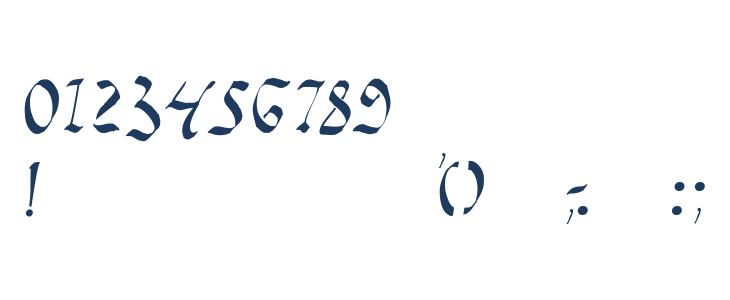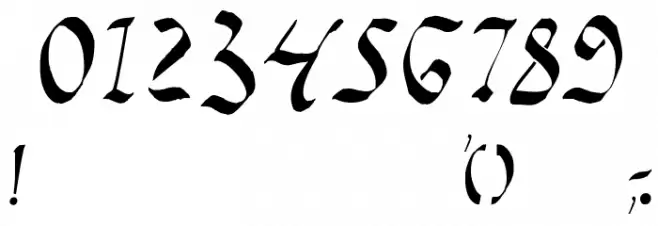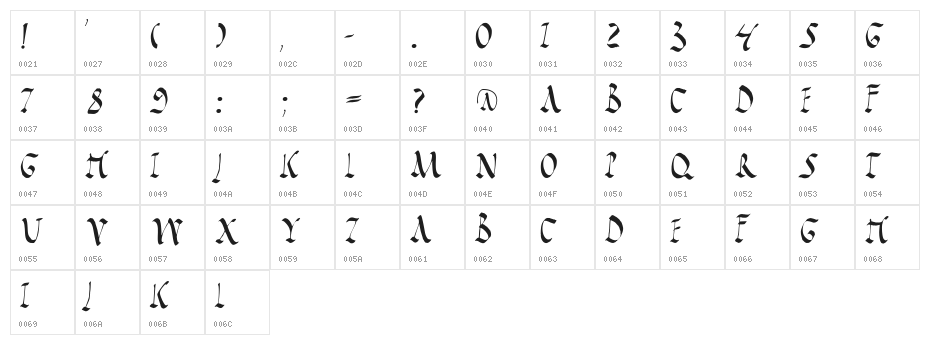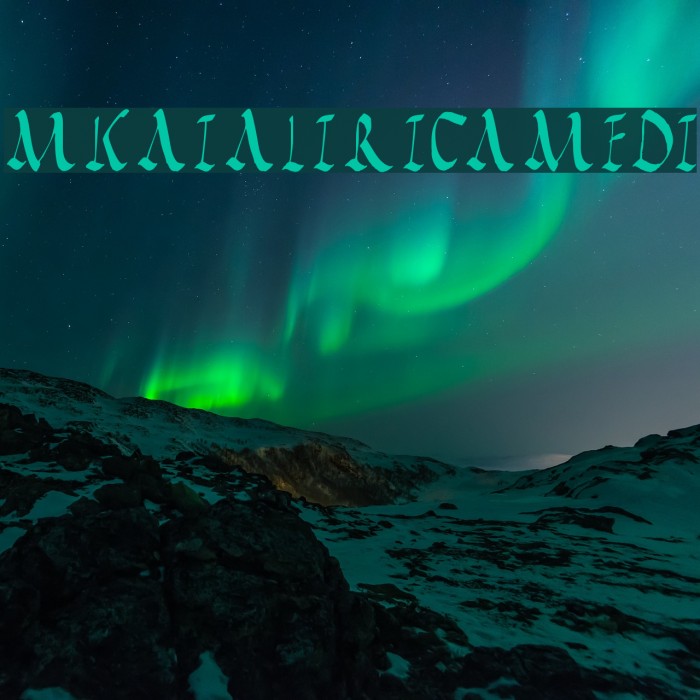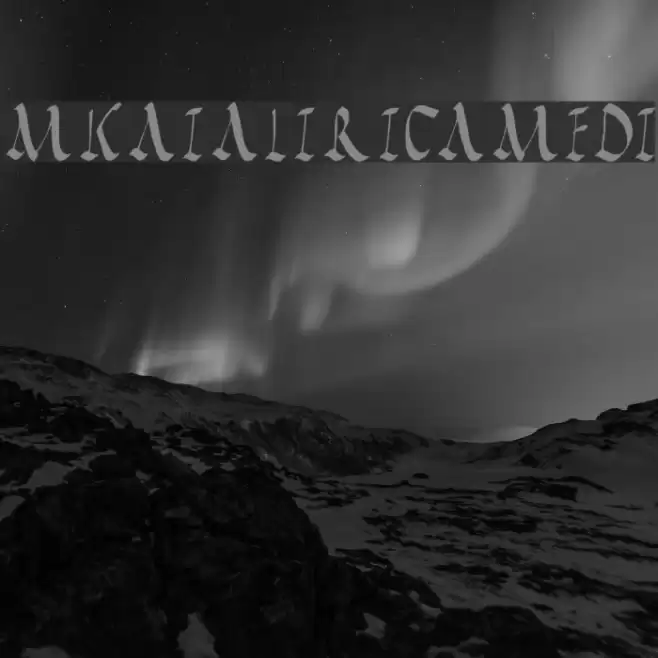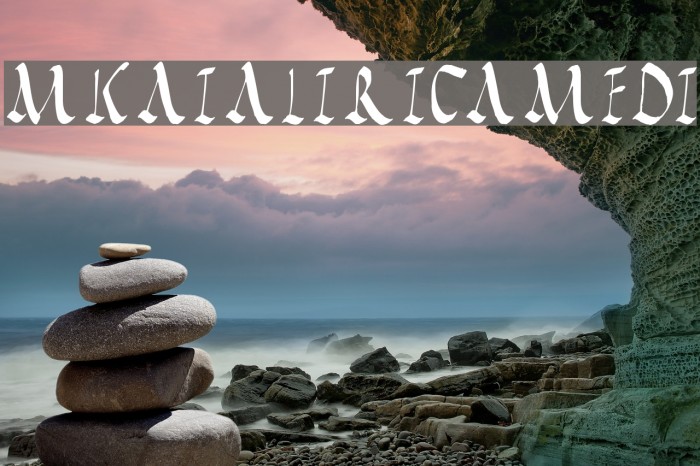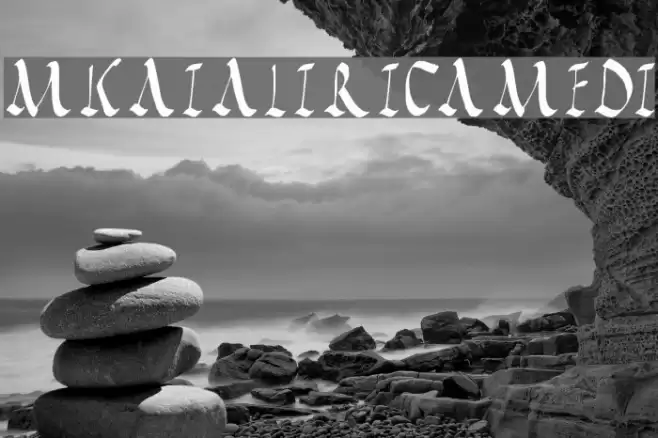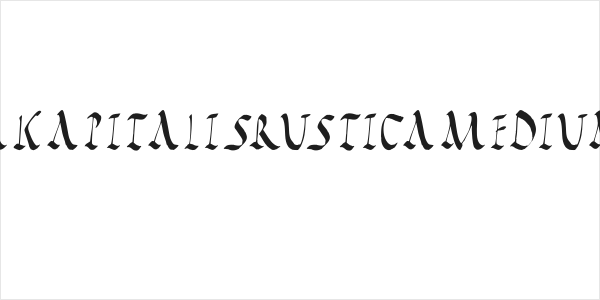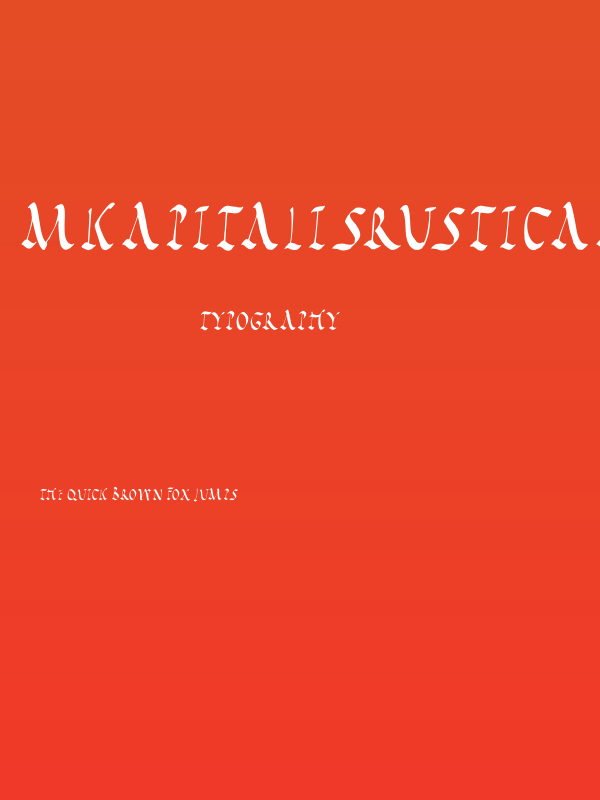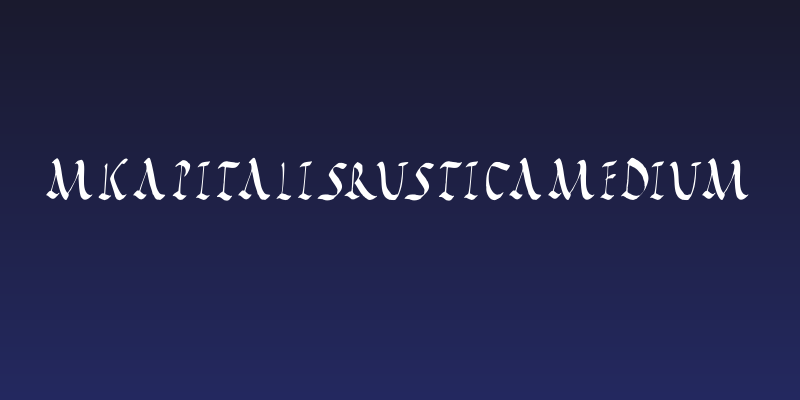
MKapitalisRusticaMedium Font
MKapitalisRusticaMedium Description
This font features a distinctive and artistic style reminiscent of ancient scripts, characterized by its angular and sharp serifs. The letters exhibit a consistent slant, giving them a dynamic and flowing appearance. Each character is crafted with a unique flair, combining both thick and thin strokes that create a striking contrast. The uppercase and lowercase letters maintain a cohesive design, while the numerals and special characters complement the overall aesthetic. This font's historical and decorative nature makes it suitable for projects that require a touch of elegance and tradition.
| Use Case | Headlines, Logos, Decorative text |
| Proposed Projects | Ideal for historical documents, invitations, book covers, and branding that requires a classic touch. |